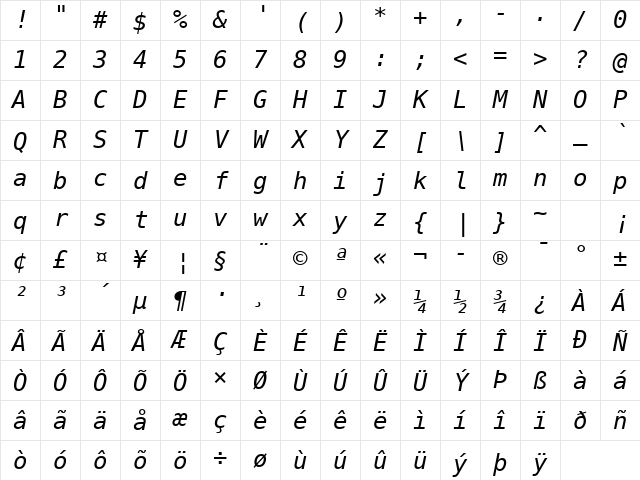
DejaVu LGC Sans Mono Oblique
Foundry: DejaVu fonts team
Design Context for DejaVu LGC Sans Mono
DejaVu LGC Sans Mono uses fixed-width spacing throughout, giving it the structured, systematic character associated with coding environments and technical documentation. The slanted form adds forward momentum and visual energy.
Pro Tip: Use DejaVu LGC Sans Mono with slightly increased line-height for extended reading - fixed-width spacing can feel dense in longer passages without extra breathing room.
Who designed the DejaVu LGC Sans Mono Oblique font?